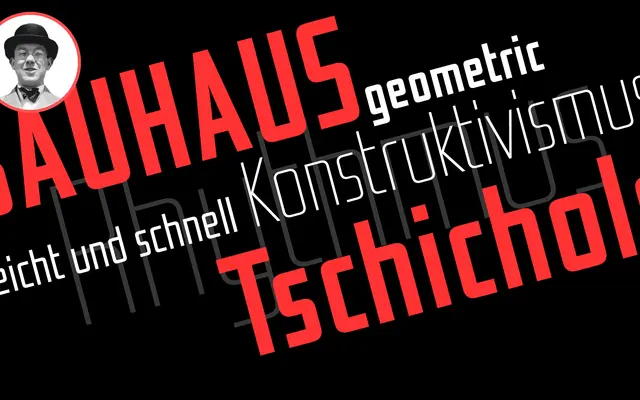
Iwan Reschniev
FDI Type Foundry · Jan Tschichold, Sebastian Nagel · 2008
A digital revival of Jan Tschichold's 1930 grid-based sans serif, extended by Sebastian Nagel from a single weight to seven, with small caps and contextual alternates.
Tschichold conceived this design in 1930 as a letterform simple enough for anyone to draw without typographic training, rooted in the Bauhaus geometric principles he encountered at the 1923 Weimar exhibition. Sebastian Nagel's 2008 revival expands the original single black weight into a seven-weight family spanning Light to Black, adding a full Latin 1 character set, small caps and OpenType features including contextual alternates for shorter f and long-s forms. Intended for display use in logos and headlines rather than continuous text.
Rooted in Jan Tschichold's 1930 grid-based sans serif design drawn from Bauhaus geometric principles; suited to display use with its simplified, constructed letterforms rather than text setting.